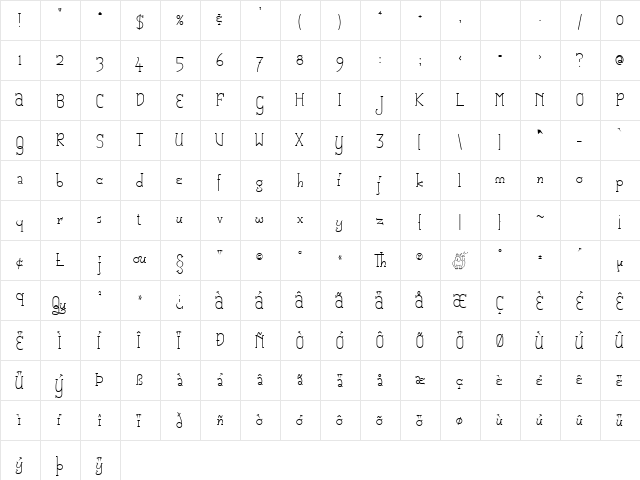
Catharsis Macchiato Regular
Design Context for Catharsis Macchiato Typeface
Catharsis Macchiato offers clean, dependable letterforms without strong stylistic allegiance, making it a practical choice for designers who need flexibility.
Pro Tip: Use Catharsis Macchiato in both headline and body roles to test its range before committing to a single application.